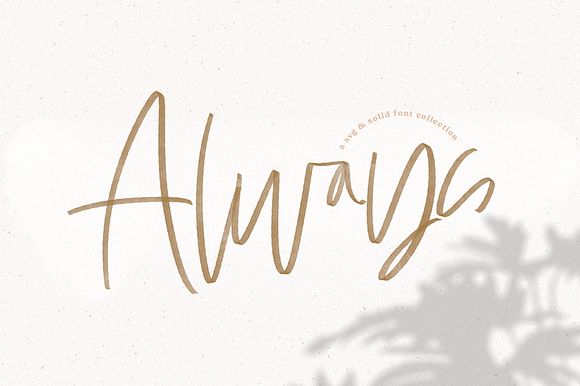
Always Svg Solid Script Font
Always Svg Solid Script Font by kaitlynn.albani is a font selected for branding, posters, packaging, typography.
Why Always Svg Solid Script Font is worth a look
Always Svg Solid Script Font by kaitlynn.albani fits naturally into Branding, posters, packaging, typography.